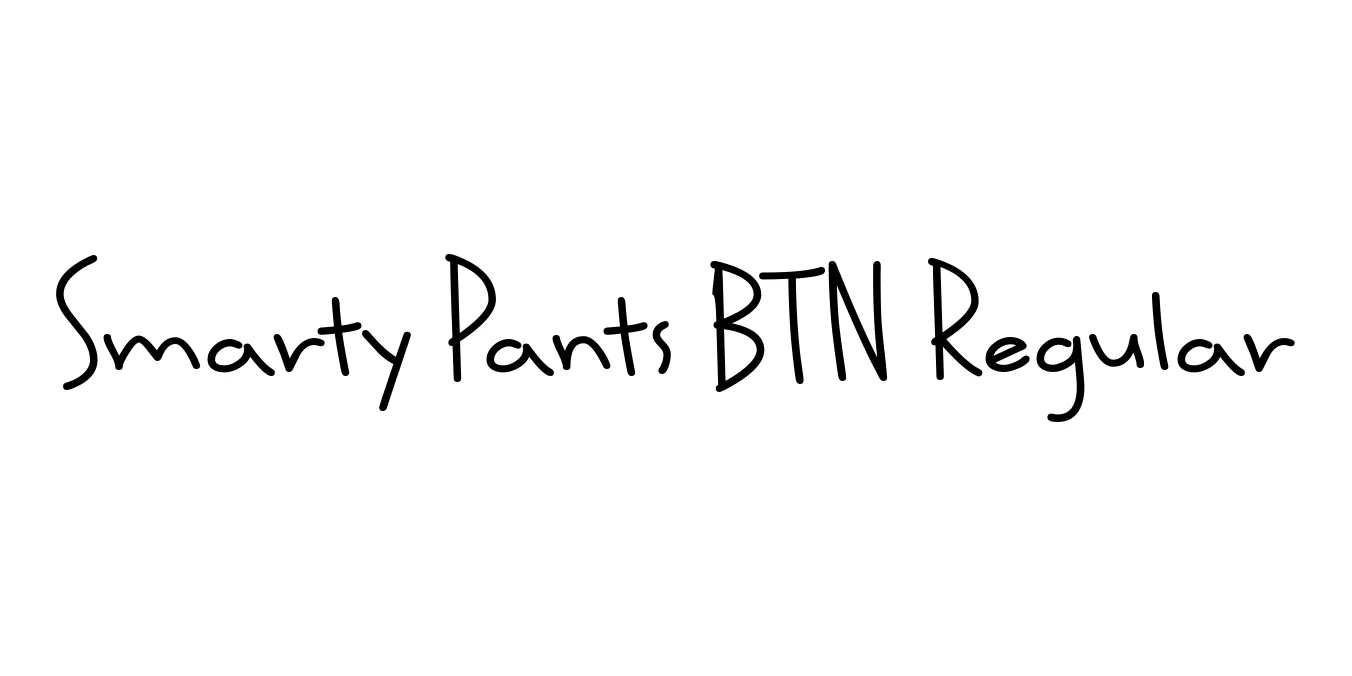
Smarty Pants BTN Regular
Designed by Stuart Sandler / Breaking The Norm (BTN)
Smarty Pants BTN Regular is a whimsical and energetic display font created by the creative powerhouse Breaking The Norm. Characterized by its bouncy baseline and irregular letterforms, this typeface captures a sense of youthful spontaneity and casual charm. It was designed to break away from rigid typographic structures, offering a "smart" yet mischievous aesthetic that works perfectly for projects requiring a touch of personality and a handcrafted feel.
Throughout its history, this font has become a staple for informal graphic design, particularly in children's media, scrapbooking, and festive marketing. Its legible yet eccentric strokes make it an excellent choice for headers and short bursts of text where a friendly tone is required. Whether used in digital media or printed invitations, Smarty Pants BTN maintains an approachable vibe that resonates with audiences looking for a fun, non-corporate look.
Smarty Pants BTN Regular Best Uses
Excellent for speech bubbles and humorous title sequences.
Ideal for birthday party invitations, flyers, and casual greeting cards.
Great for accent headers on lifestyle blogs, parenting sites, or craft shops.
Adds a fun, personality-driven look to Instagram stories and Pinterest graphics.